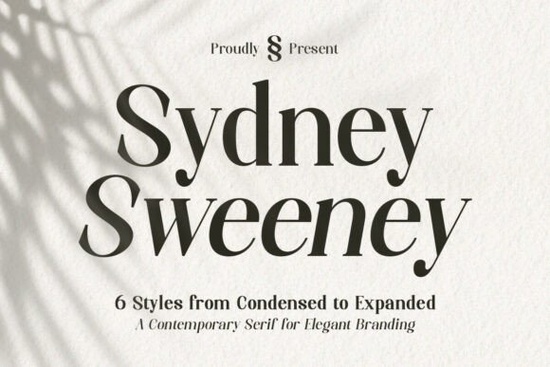
Choosing the right typeface for a high-end project often comes down to finding a balance between readability and style. When you need something that feels expensive without trying too hard, a contemporary serif is usually the best path. The Sydney Sweeney Font is designed specifically for this purpose, offering elegance and clarity in equal measure. It brings a refined character to modern typography, making it a solid choice for designers who want their work to stand out for the right reasons.
This typeface family includes six distinct styles, ranging from Condensed to Expanded. This variety gives you flexibility when working on different layouts. You might use a wider style for a main headline and a narrower version for subheaders, keeping the visual identity consistent without getting boring. The balanced contrast and carefully crafted letterforms ensure that the text looks good whether it is printed on thick cardstock or displayed on a digital screen.
What makes this typeface stand out from others?
Many serif fonts feel either too old-fashioned or too plain. This family manages to feel both modern and classic at the same time. The graceful curves and sharp serifs create a timeless appearance. It does not rely on trendy quirks that might look outdated in a year. Instead, it focuses on harmonious proportions that work well in large display settings as well as elegant compositions.
For designers building a brand identity, consistency is key. Having six styles in one package means you do not need to mix different font families to get contrast. You can create a hierarchy using only this typeface, which keeps your design clean. If you are exploring different options, you might also browse this collection of serif fonts to see how different weights affect the overall mood of a project.
Where does this font work best in real projects?
Because of its sophisticated aesthetic, this typeface is perfect for luxury branding and editorial layouts. Think about fashion magazines, high-end packaging, or premium visual identities. It adds a distinctive voice to any design that needs to communicate quality. Here are a few specific use cases where this font shines:
- Logos: The sharp serifs make for memorable monograms or wordmarks.
- Wedding Invitations: The elegant curves suit formal events perfectly.
- Packaging: It reads well on boxes and labels for beauty or lifestyle products.
- Editorial: Great for headlines in magazines or online blogs focused on lifestyle.
Small business owners and print-on-demand sellers can also benefit from this versatility. If you are selling custom mugs, t-shirts, or tote bags, a strong serif font can make a simple text design look professional. It maintains readability even when printed on textured materials, which is often a challenge for thinner typefaces.
Can I use it for print on demand?
How do you pair this with other text?
While this family is versatile on its own, you might need a secondary font for long body text. Serifs are excellent for headlines, but sometimes a clean sans-serif is easier to read in small paragraphs. Try pairing this with a simple geometric sans-serif for website body copy or product descriptions. This creates a nice contrast between the expressive headlines and the functional information.
Avoid pairing it with another decorative serif, as this can make the design look cluttered. Let the Sydney Sweeney Font be the star of the show. Use it for the elements you want people to notice first, like the brand name or the main offer. Keep the supporting text simple so the eye knows where to look.
When adjusting the settings in your design software, pay attention to kerning. Serif fonts often need a bit more breathing room between letters to look their best. Do not let the characters touch unless you are creating a specific logo effect. Proper spacing ensures the sharp serifs do not clash visually, maintaining that refined character mentioned in the description.
Taking these steps will help you use the font effectively in your next creative project. Whether you are branding a new business or making a custom gift, the right typography makes a significant difference in how your work is perceived.